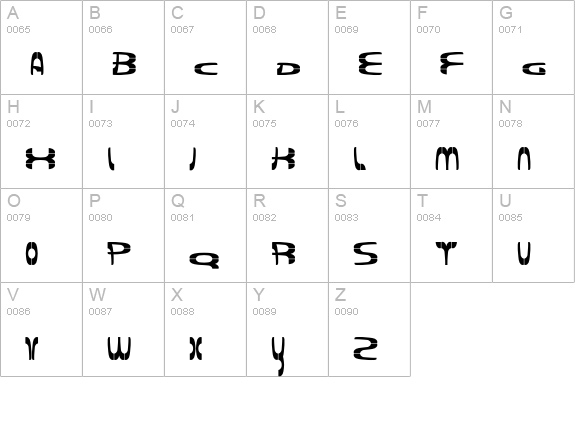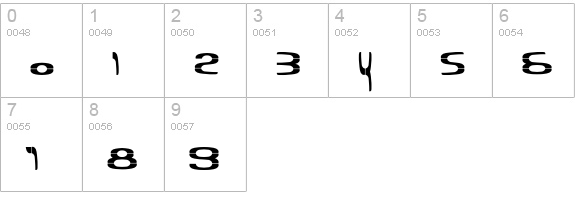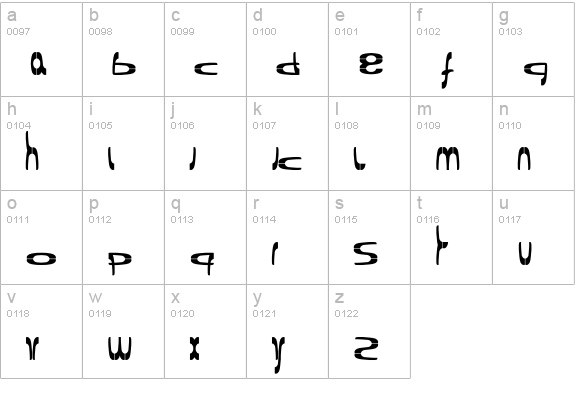
Pipeface Font Details
Introducing Pipeface font, a captivating and enchanting typeface that is sure to make a bold statement in any design project. With its unique and edgy style, Pipeface font exudes a sense of creativity and sophistication that is guaranteed to catch the eye. Featuring intricate and intricate letterforms, this font is perfect for adding a touch of elegance and charm to your designs. Its fluid lines and unexpected angles create a visually appealing and dynamic look that will captivate your audience. But perhaps the most enticing aspect of Pipeface font is that it is free. Yes, you read that right! This extraordinary font is freely available to download at FontsMarket.com. Now you can elevate your designs without breaking the bank. Whether you are working on a branding project, logo design, website, or any other creative endeavor, Pipeface font will undoubtedly make a lasting impression. Its versatility allows it to effortlessly adapt to various styles and themes, making it a valuable addition to any designer's toolkit. So, why wait? Download Pipeface font today from FontsMarket.com and unlock a world of possibilities. Let your imagination run wild as you explore the countless ways to incorporate this stunning font into your designs. Don't miss out on this incredible opportunity to enhance your creative endeavors with a font that is as captivating as it is free. Get Pipeface font now and let your designs speak volumes.